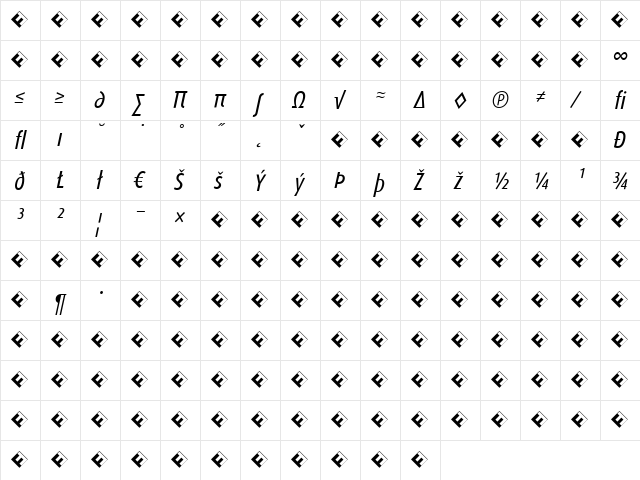
DaxCondensed-RegularItalicExp Italic Font Preview
| Foundry | Hans Reichel, published by Fontshop International for the FontFont library |
Design Context for DaxCondensed-RegularItalicExp Typeface
DaxCondensed-RegularItalicExp takes a measured approach to typography — its balanced proportions and neutral character make it a reliable workhorse for both digital and print work. The slanted form adds forward momentum and visual energy. The condensed width makes it efficient for tight spaces without sacrificing legibility.
Pro Tip: Try DaxCondensed-RegularItalicExp for annotation and caption copy alongside an upright companion — the contrast in angle creates a dynamic but ordered typographic system.